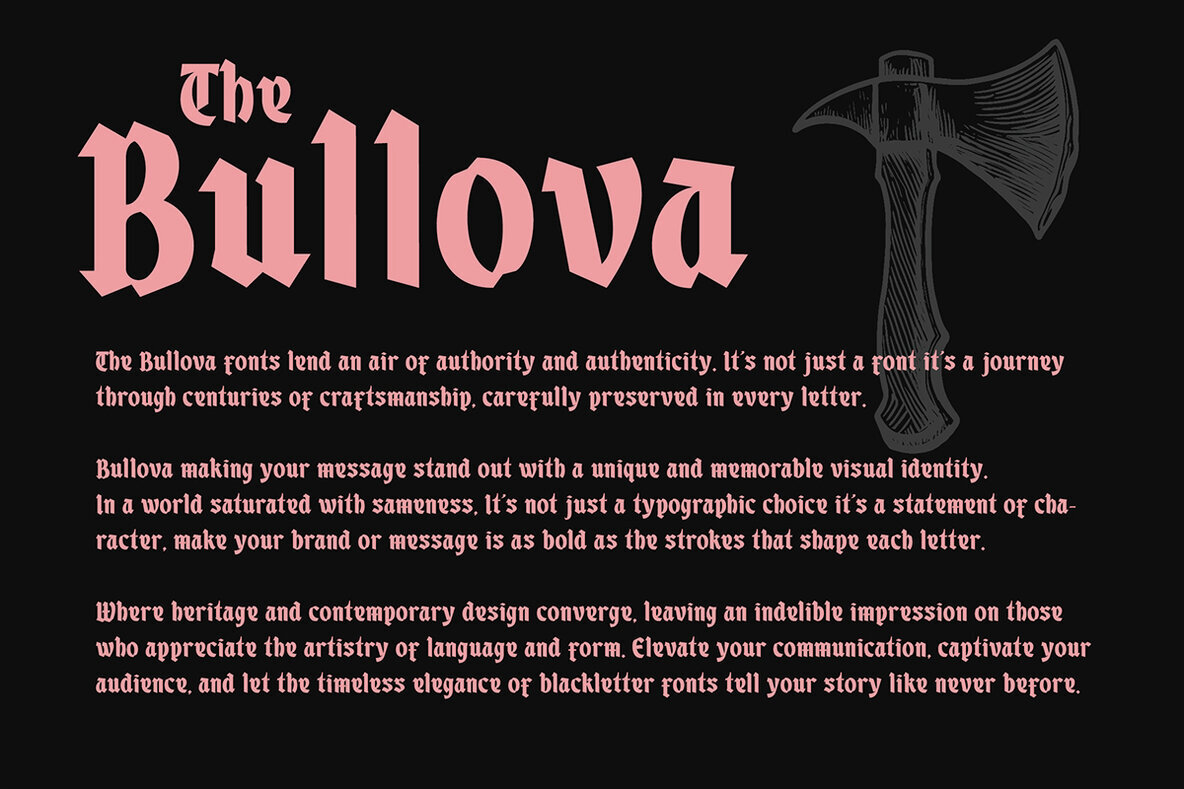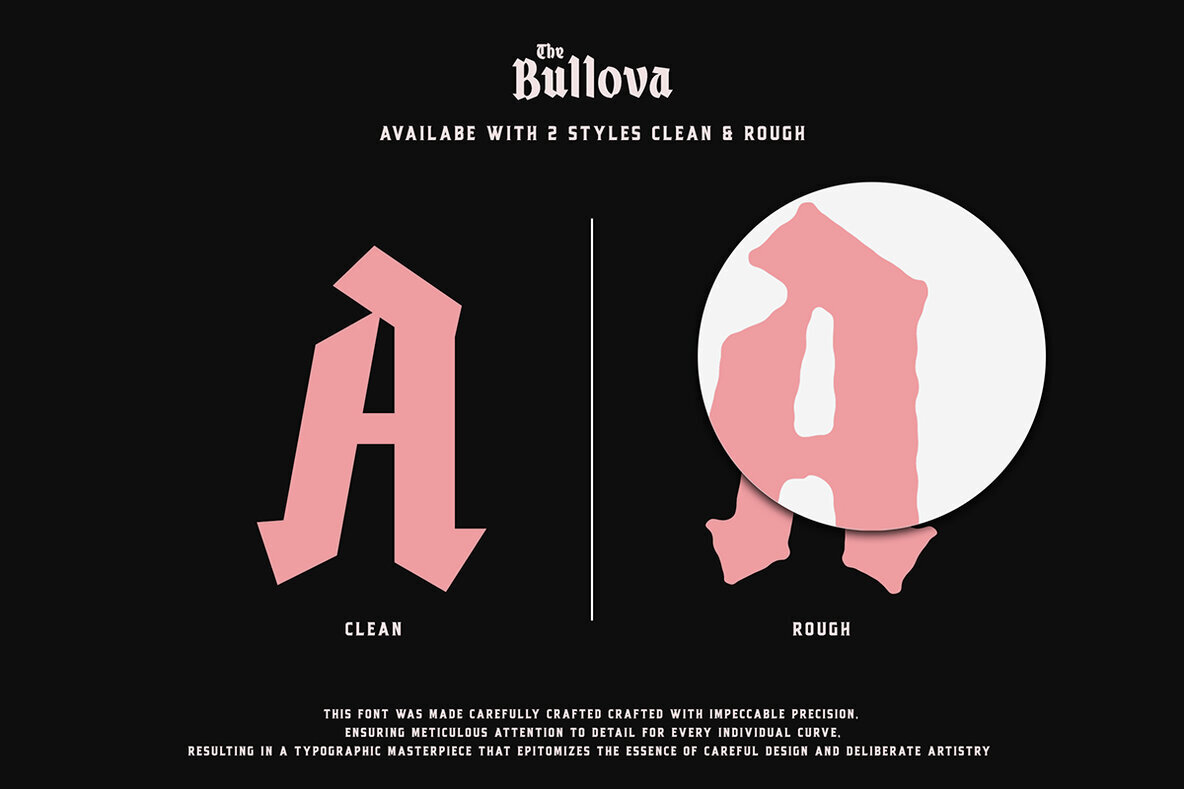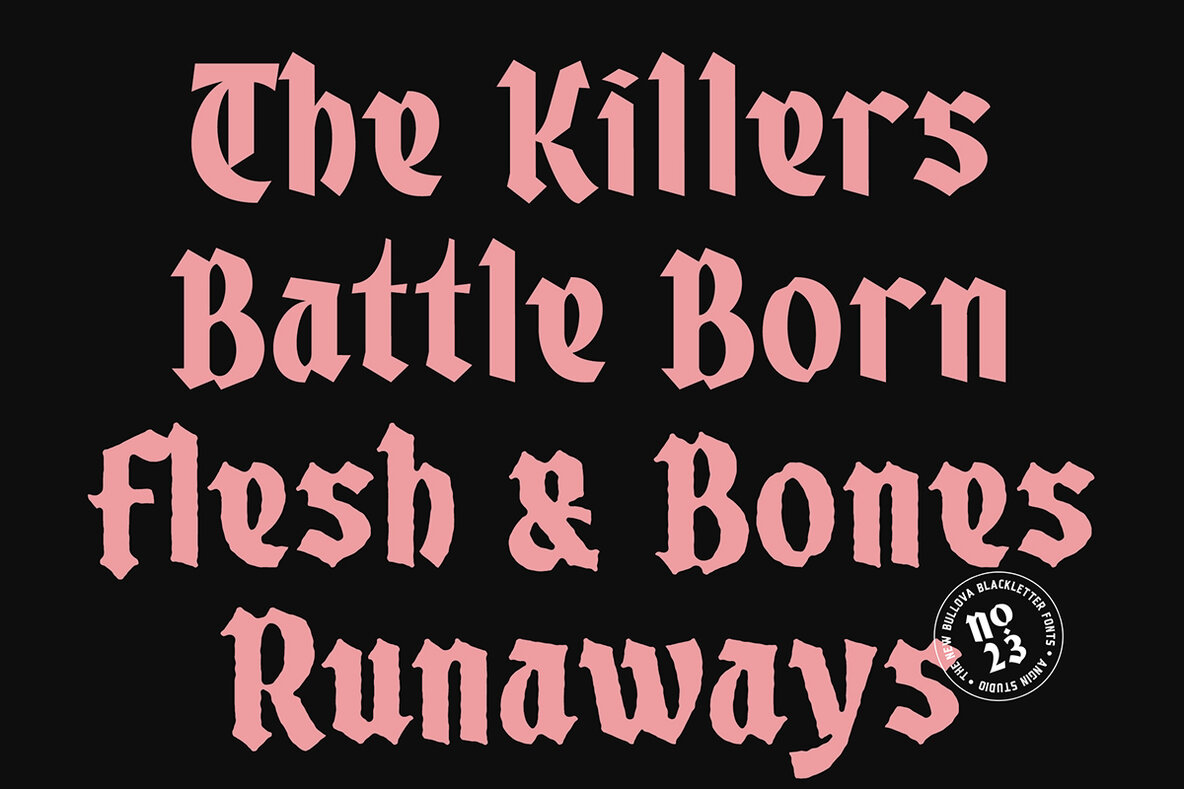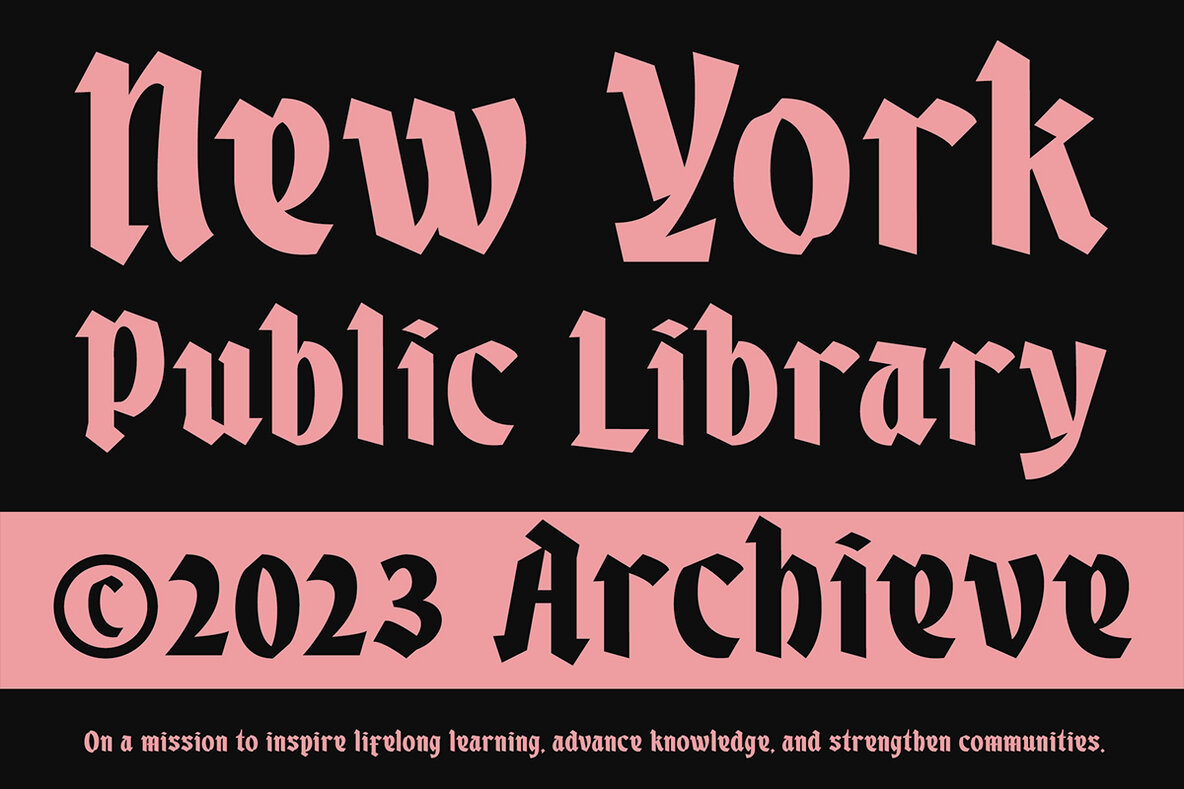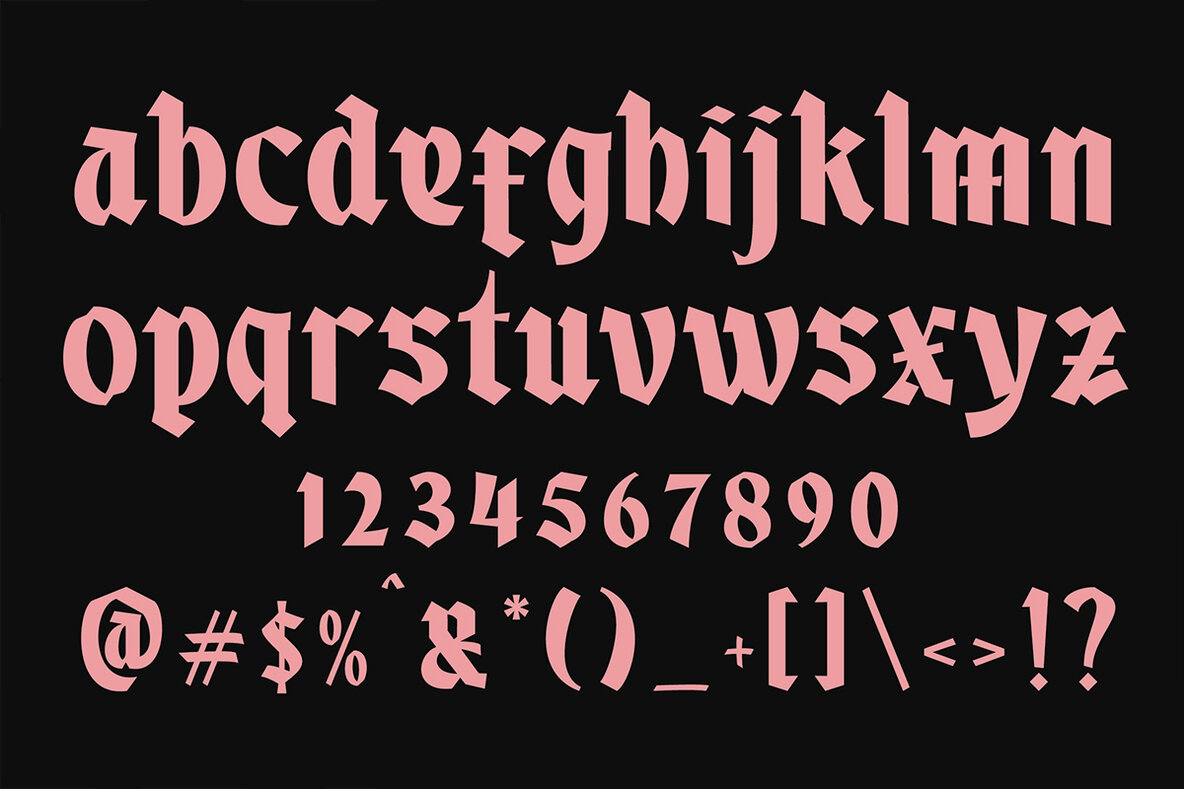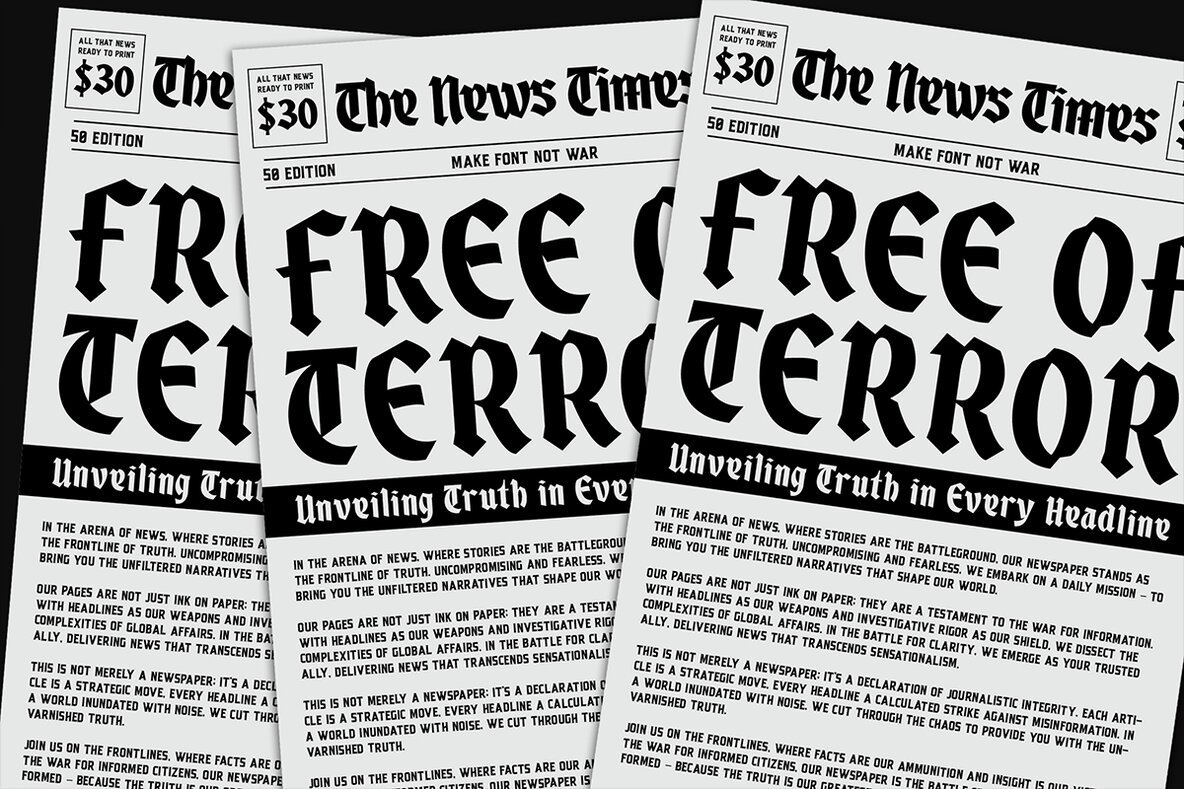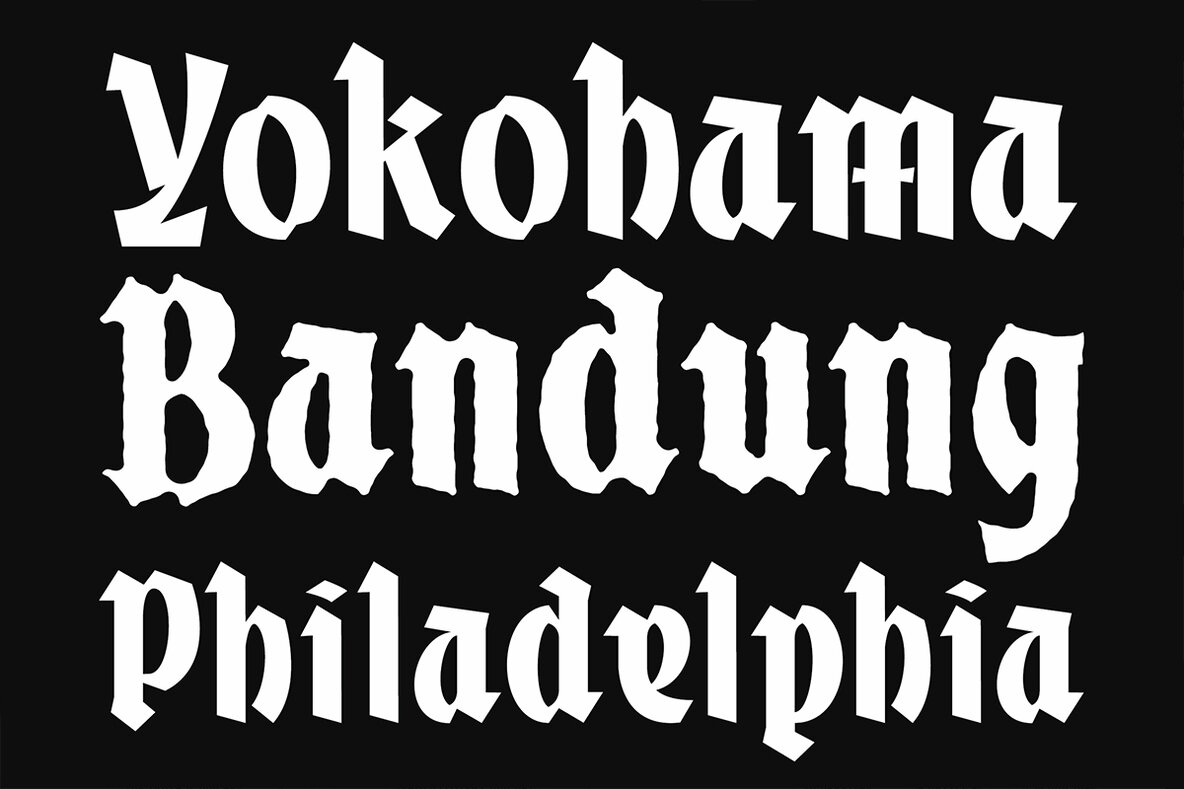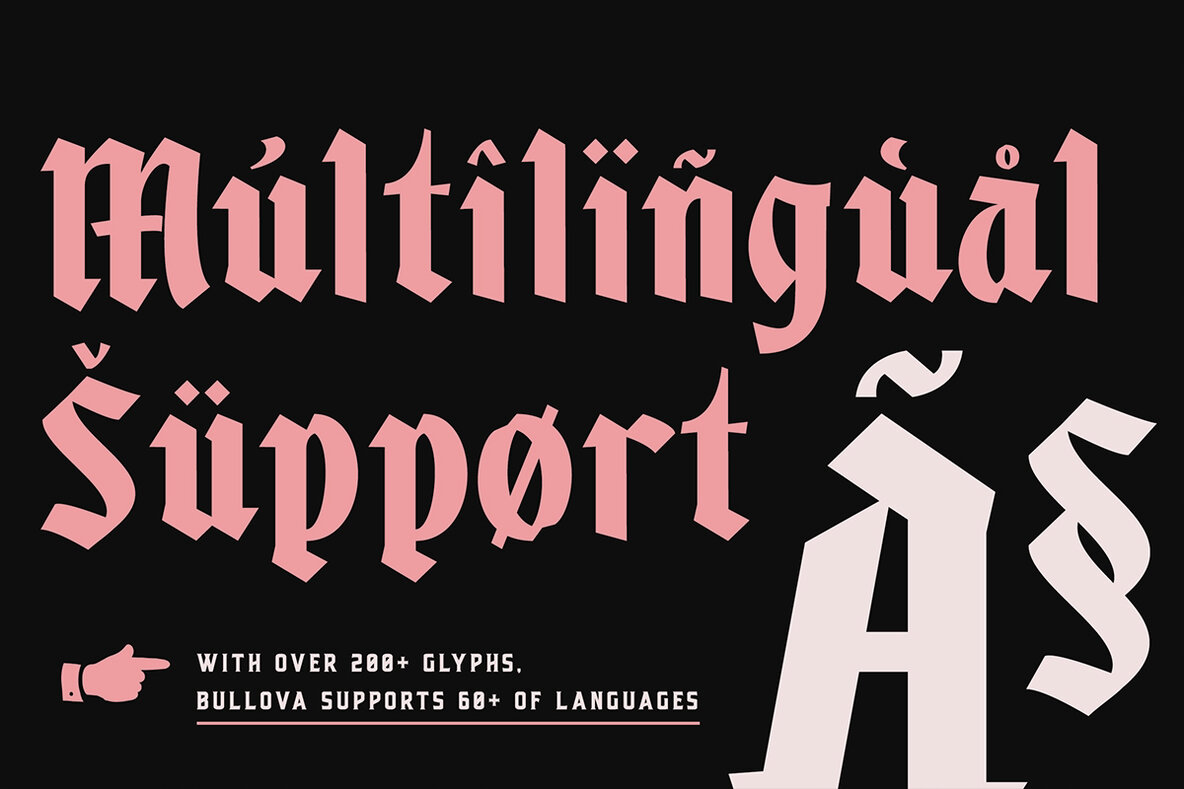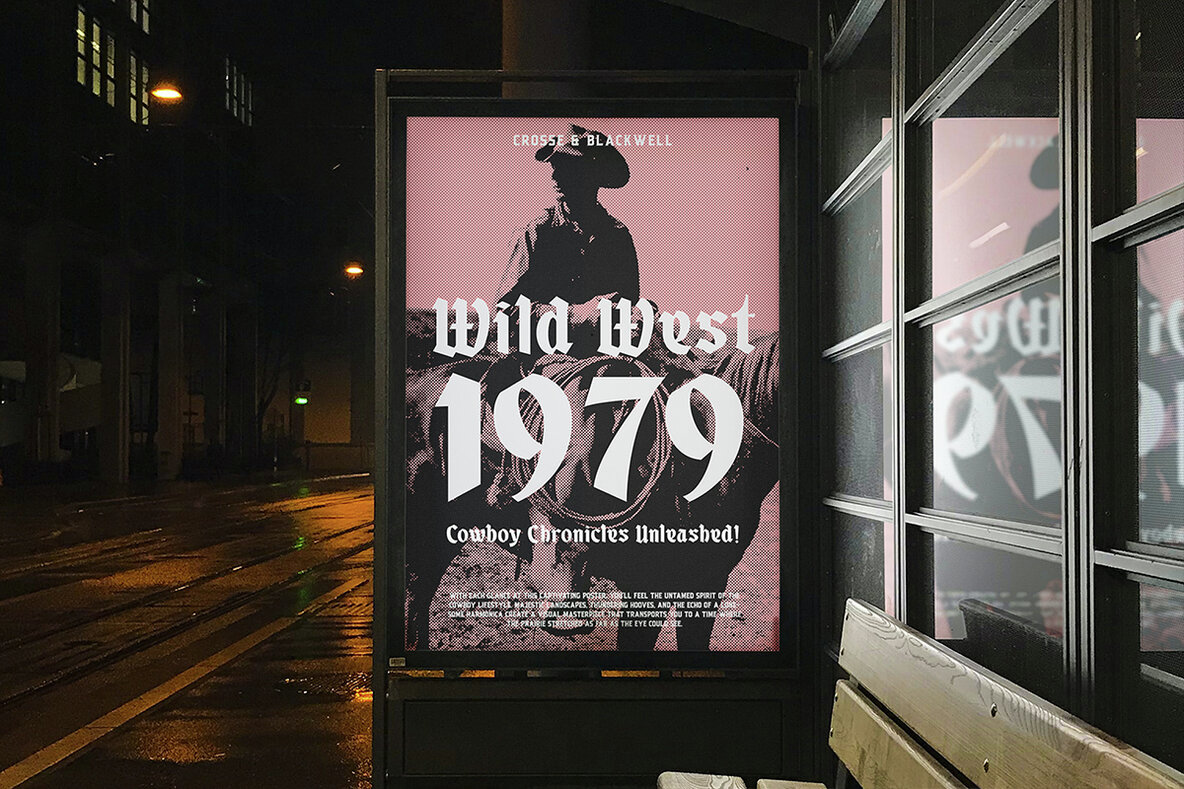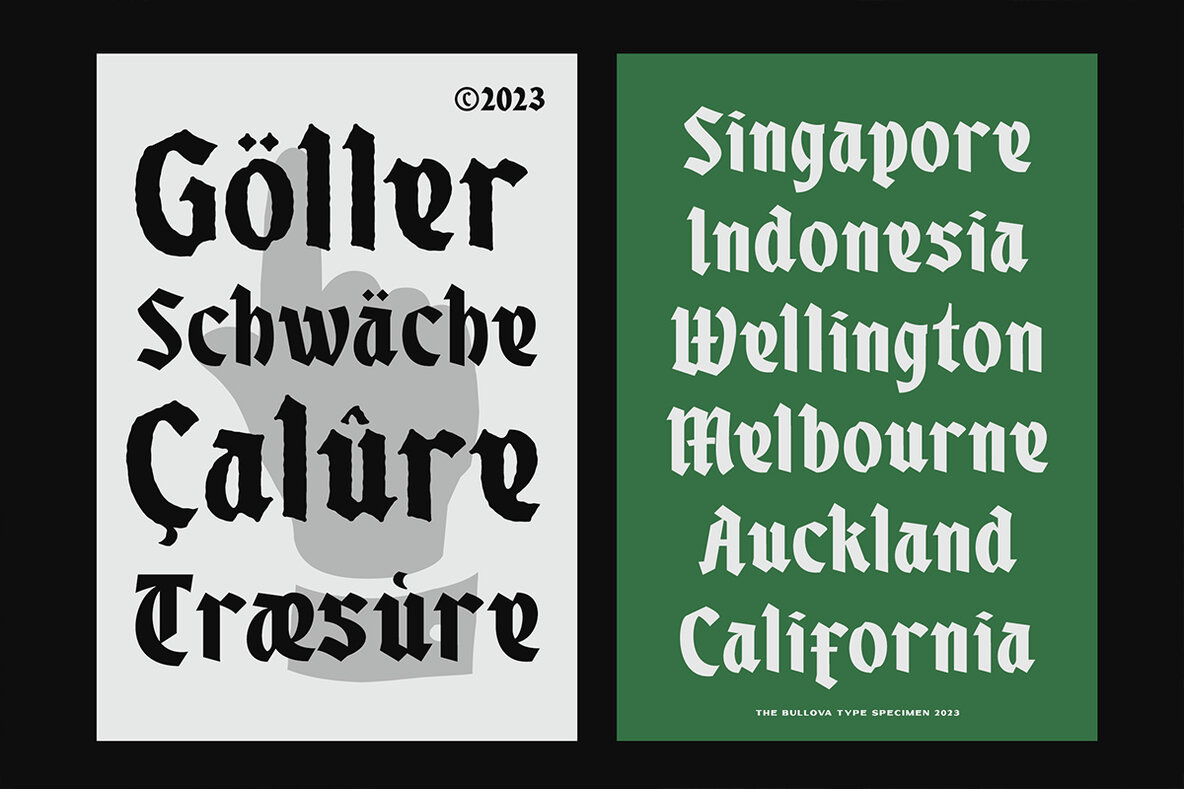
Bullova Font
Bullova is a standout typeface inspired by traditional Fraktur and Rotunda Blackletter manuscripts, infused with a modern touch. Designed to be bold and eye-catching, Bullova brings historical essence into contemporary design projects. This font is excellent for producing dynamic logos, striking posters, captivating album covers, tattoo designs, and appealing labels or packaging.
Bullova supports multilingual characters, ensuring compatibility with various languages, making it versatile for a wide range of audiences. Offered in two unique styles—Regular and Rough—this font adapts to different design contexts, whether you seek a clean, polished look or a textured, rugged appearance. Embrace Bullova for projects that demand a blend of historical depth and modern elegance.